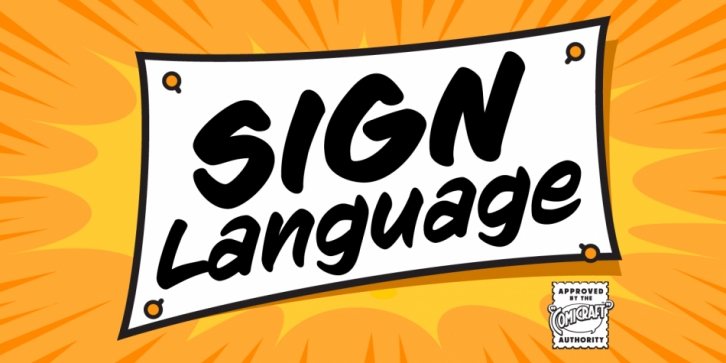
Publisher: Comicraft
Designed by John Roshell and Richard Starkings, Sign Language is a brush display and dingbat font family. This typeface has five styles and was published by Comicraft.
Here at Comicraft we have seen the signs on the headline news, we have read the portents of things to come… yes, just as thunder is a sign of storm, just as pumpkins outside Ralphs on November the 1st are sure to be on sale, just as fresh produce becomes rotten, as sure as night turns to day, dark turns to grey, winter turns to spring and milk turns sour if you leave it out on the kitchen table overnight…
Yes, here at Comicraft we know there’s a signpost up ahead… a sign heading not into the twilight zone, but down a road of hope and hard work, a banner year, a red letter day, we know it’s time to knuckle down, soldier on and pull ourselves up by our bootstraps. Well, we should probably pull ourselves up by our bootstraps BEFORE we soldier on, NEVERTHELESS, here it is—not a soundbite, not an unfulfilled campaign promise—SignLanguage is a font that makes the impossible possible, a font that cuts the taxes for 95% of American families, a font that closes down Gitmo and brings our troops home from Iraq. Senator Joe “Six Pack” Biden has described SignLanguage as articulate and bright and clean—and a nice-looking font.
In conclusion, Comicraft recommends you elect Sign Language.